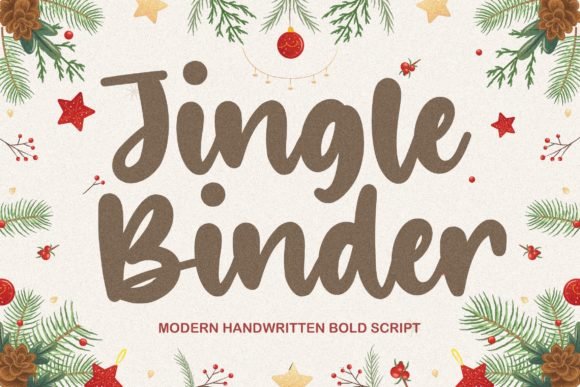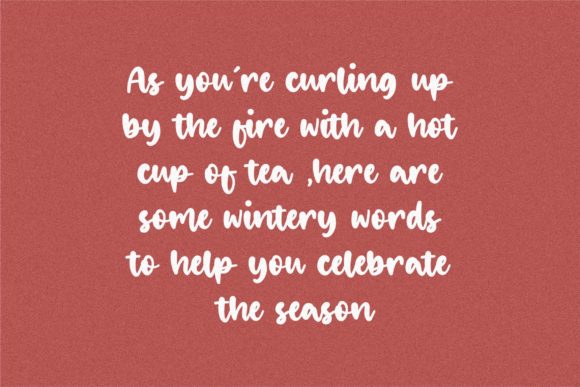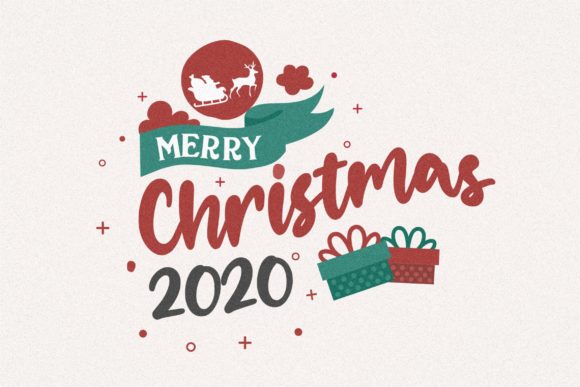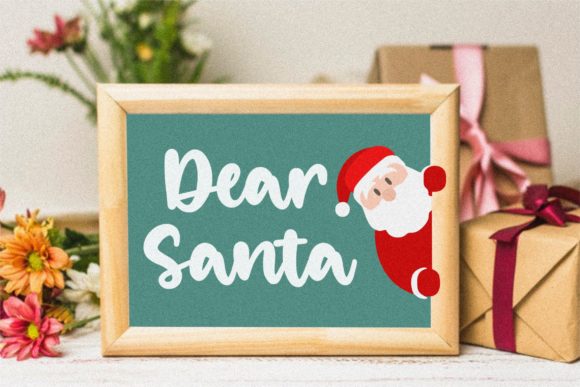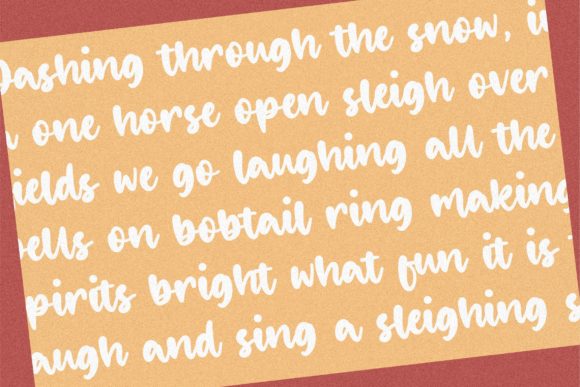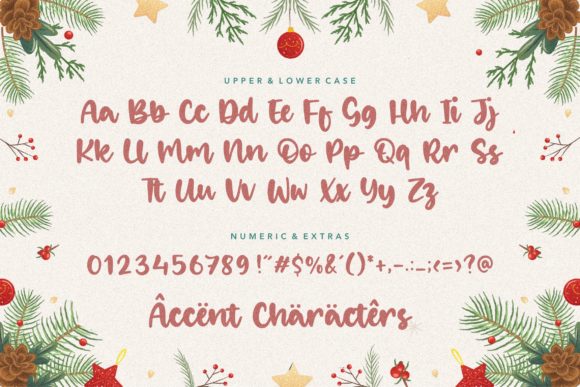
Unleash Your Creativity with Jingle Binder Font
Do you remember that moment when you stumbled upon the perfect font, and everything just clicked? It’s a feeling every designer knows and loves. For me, it was when I discovered the Jingle Binder Font – a flowing handwritten font that exudes elegance and sophistication. This beautiful font is perfect for adding a personal touch to your favorite projects, making them truly unforgettable.
With its distinct and timeless style, the Jingle Binder Font is a valuable asset for any designer. Whether you’re working on a wedding invitation, a birthday card, or a marketing campaign, this font is sure to make your designs stand out. Its versatility and charm make it an ideal choice for creatives who want to add a touch of personality to their work.
Jingle Binder Font Key Features
- Font Family: Jingle Binder is a unique, hand-drawn font designed for creative and playful purposes.
- Unique Characteristics: This font features a distinctive, whimsical style with intricate details and flourishes, perfect for adding a touch of personality to designs.
Jingle Binder Font Review
I recently had the chance to work with the Jingle Binder Font, and I must say, it’s an interesting choice for a holiday-themed project. ✨ The font’s playful, whimsical feel is perfect for festive branding or packaging designs. The curves and flourishes add a touch of sophistication, making it a great option for those who want to avoid the more cliché, overused holiday fonts.
One of the standout features of Jingle Binder is its wide range of glyph options. ✨ It includes a variety of ornaments, icons, and symbols that can be used to add a personal touch to your designs. The font also comes with a range of ligatures, which can help to create a more cohesive look.
However, I did encounter a few limitations while working with Jingle Binder. ⚠️ The font can be quite dense, which can make it difficult to read at smaller sizes. Additionally, the ornaments and icons can be a bit too ornate, which may not be suitable for all designs.
Pros and Cons:
- Playful, whimsical feel perfect for holiday-themed projects
- Wide range of glyph options, including ornaments and icons
- Ligatures can help create a more cohesive look
- Dense font can be difficult to read at smaller sizes
- Ornaments and icons can be too ornate for some designs
Overall, I would recommend Jingle Binder Font for designers who are looking for a unique and playful holiday font. While it may have some limitations, its strengths make it a great choice for those who want to add a touch of magic to their designs.
Jingle Binder Font Practical Application Guide
To get the most out of the Jingle Binder Font, try using it in combination with bold or italic text to add emphasis. You can also use it in conjunction with festive colors and graphics to create a cohesive design.
The Jingle Binder Font is perfect for holiday designs, such as Christmas cards, gift tags, and party invitations. It’s also great for creating playful and whimsical designs for children’s parties, birthday invitations, and other festive events.